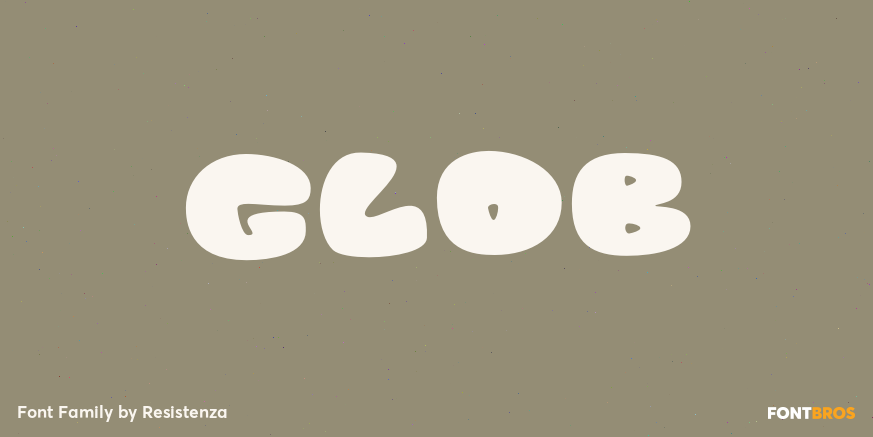
HomeFont BrosFuturisticGlob FuturisticGroovy (1966-1978) Glob FacebookXPinterestWhatsApp 1 of 1 About Glob Glob is a multilanguage, uppercase, bubble-letter font family, in regular, italic, outline & rough styles.  DOWNLOAD NOW People also explored Golden Pumpkins Font Fantastico Font Noura Sans Font Lovea Script Font Autumn Leaves Font Dekatron Variable Underwood Typewriter Honeymoon Font Beautiful in Its Time Font 259 0 TagsGlobGlob Font Previous articleYWFT EnamNext articleConthrax Variable LEAVE A REPLY Cancel reply Comment: Please enter your comment! Name:* Please enter your name here Email:* You have entered an incorrect email address! Please enter your email address here Website: Save my name, email, and website in this browser for the next time I comment. Personal Use Free Butter Belly Personal Use Free Read more about this font Soulties Personal Use Free Read more about this font Rare Knuckle Personal Use Free Read more about this font Child Witch Personal Use Free Read more about this font BLOG Top 10 Handwritten Fonts That Elevate Your Designs Top 10 Handwritten Fonts That Will Elevate Your Designs Handwritten fonts bring a warm, personal touch to every creative project. Whether you're designing logos, invitations,... Free Fonts Risk: Why Free Fonts Can Be Dangerous for Designers Using Fonts in Digital Marketing: Tips to Strengthen Your Brand Identity 5 Fonts That Will Dominate Design Trends in 2026